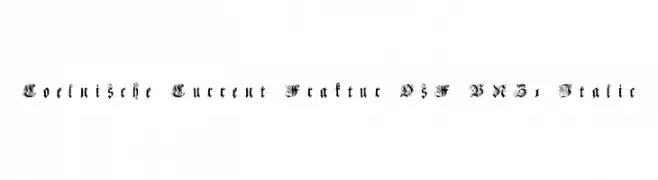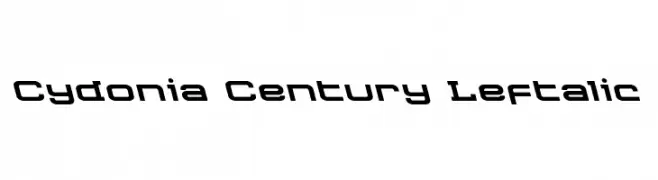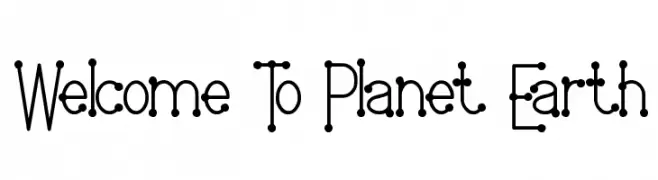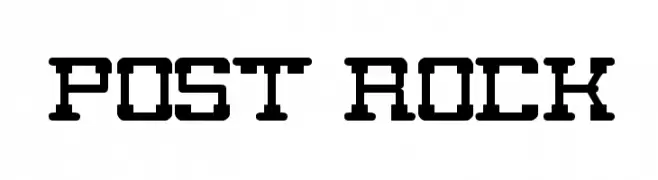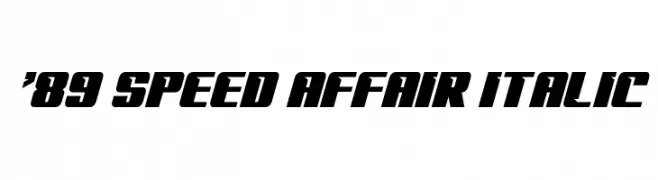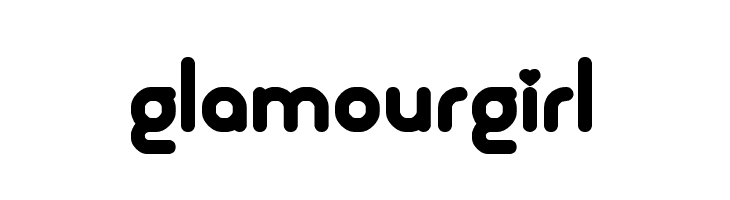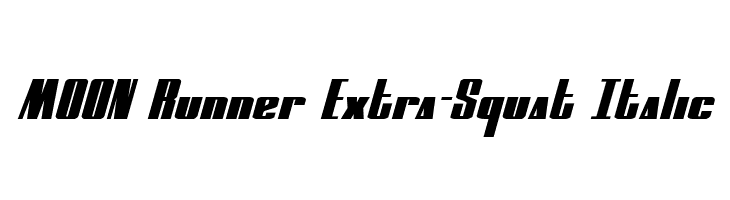
An intricate blackletter font with ornate, medieval-inspired letterforms.
A bold, slab serif font with strong geometric shapes and thick strokes.
A bold, futuristic font with geometric and angular design elements.
A bold, jagged font with an eerie, horror-inspired style.
A playful, dot-connected font with a modern, circuit-like design.
A bold, playful font with rounded, bubble-like characters and a whimsical style.
A pixelated, retro-style font with a geometric, grid-like appearance.
A bold, geometric font with an industrial, mechanical style.
A bold, italicized font with a dynamic and modern style, perfect for high-impact designs.